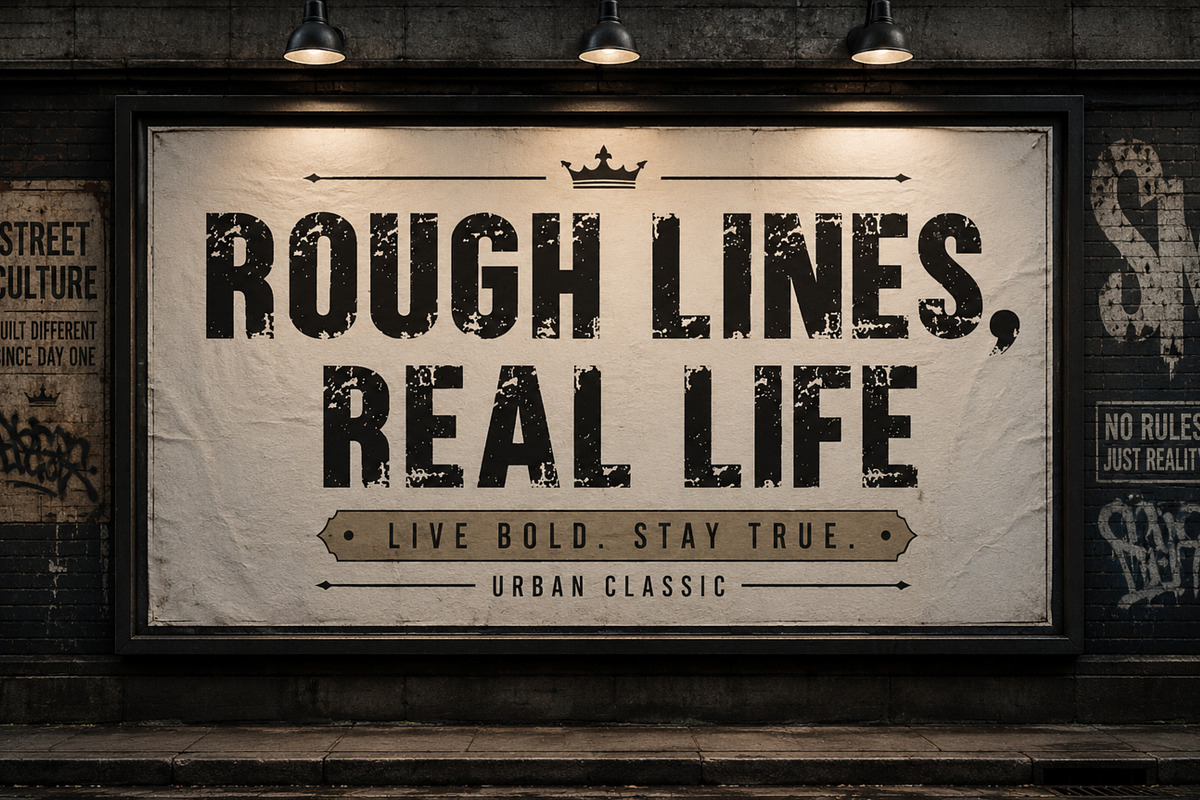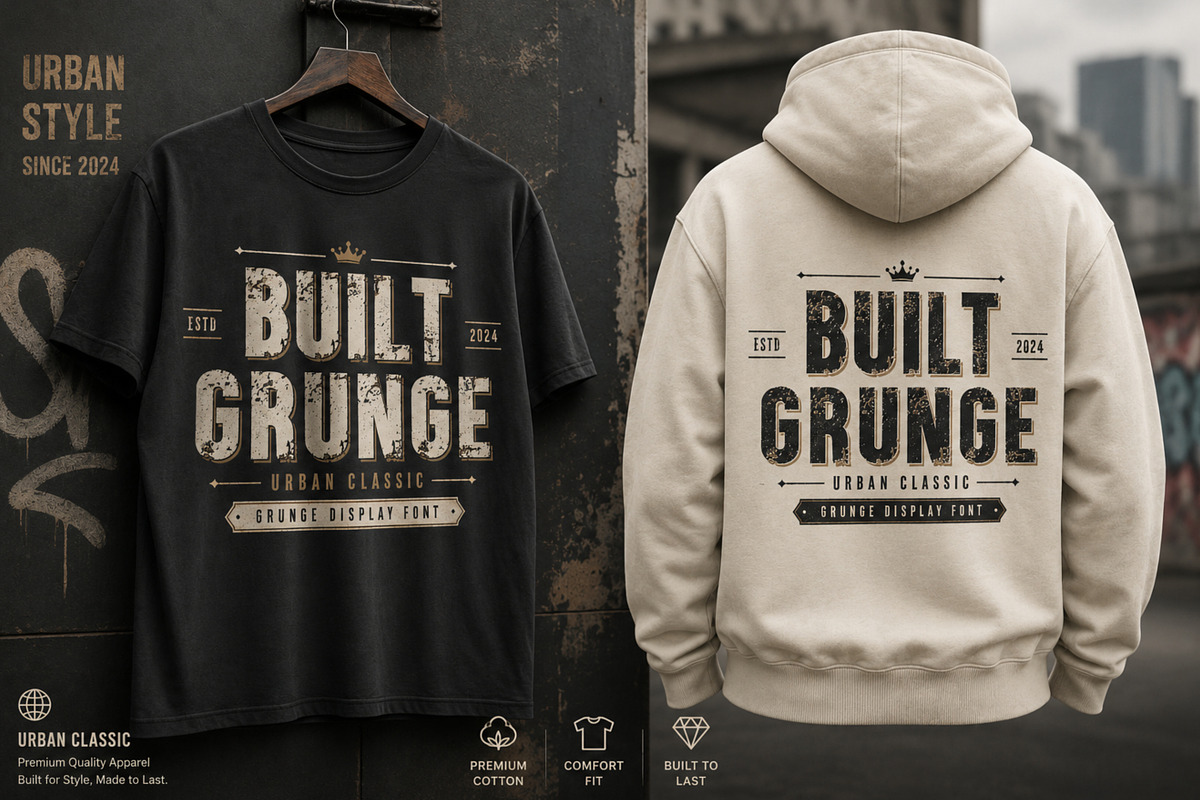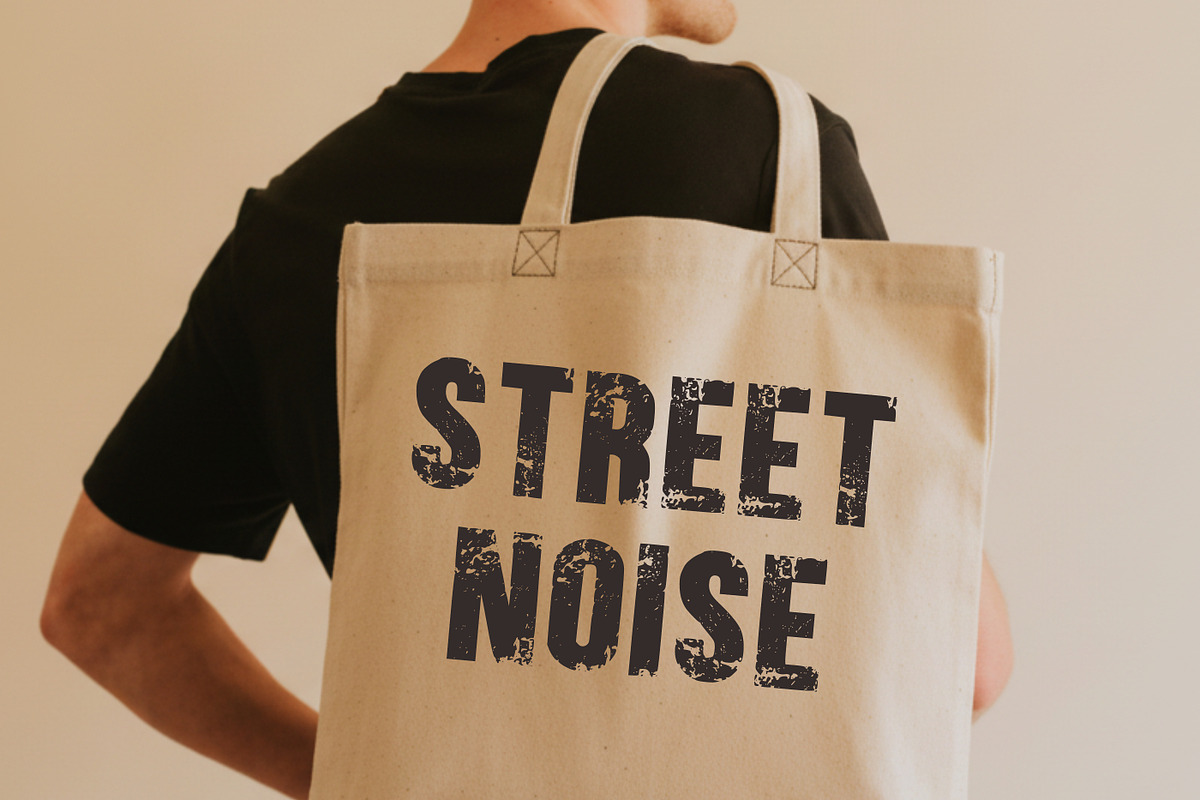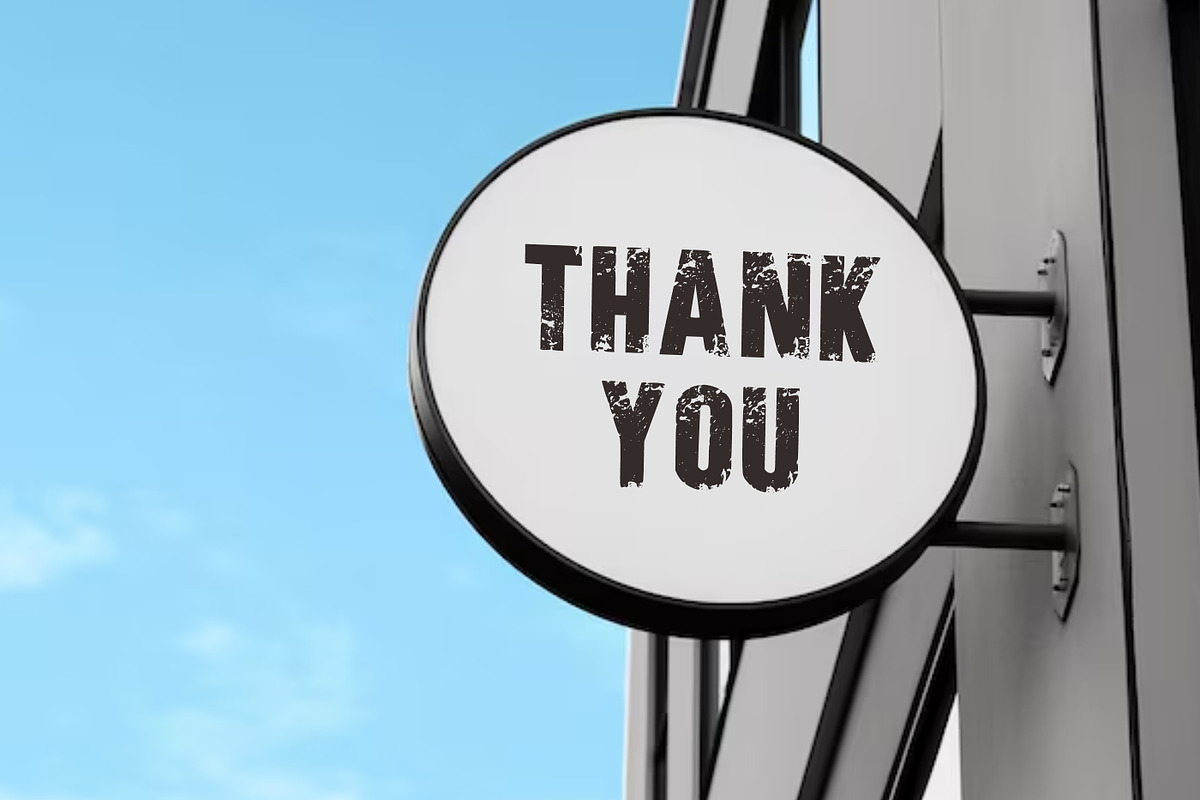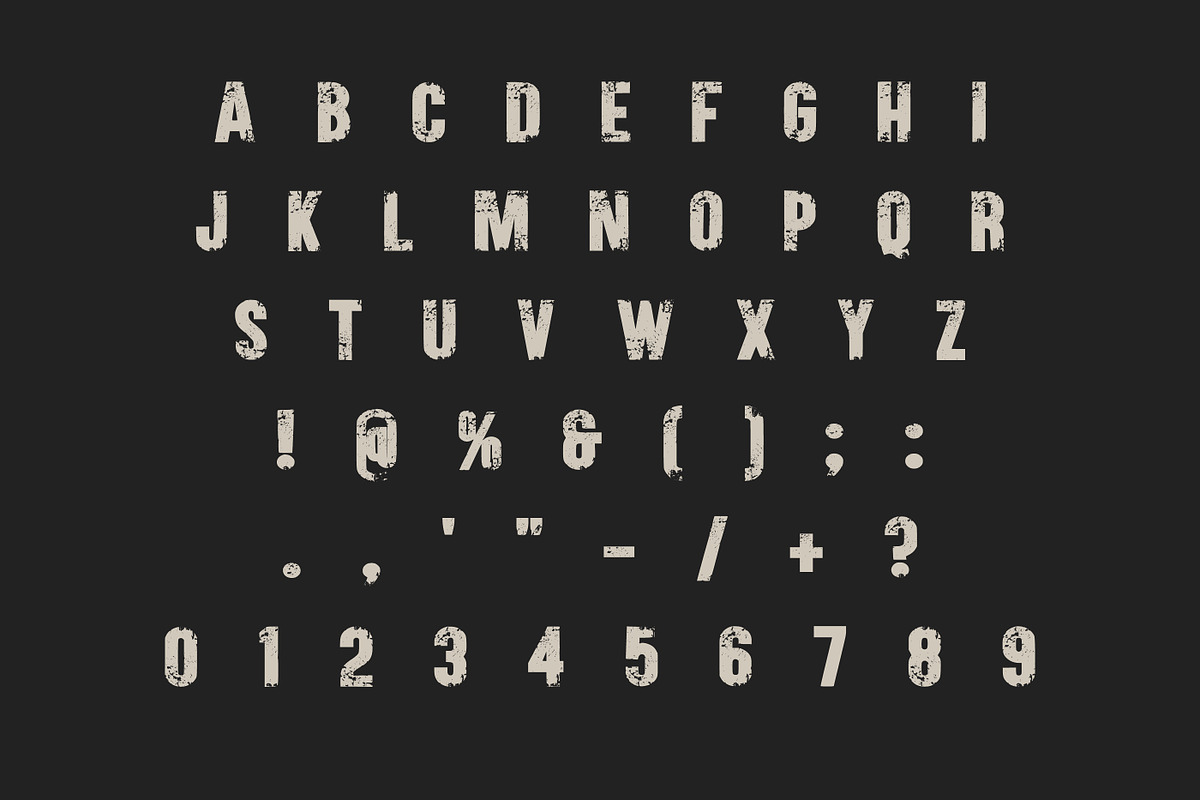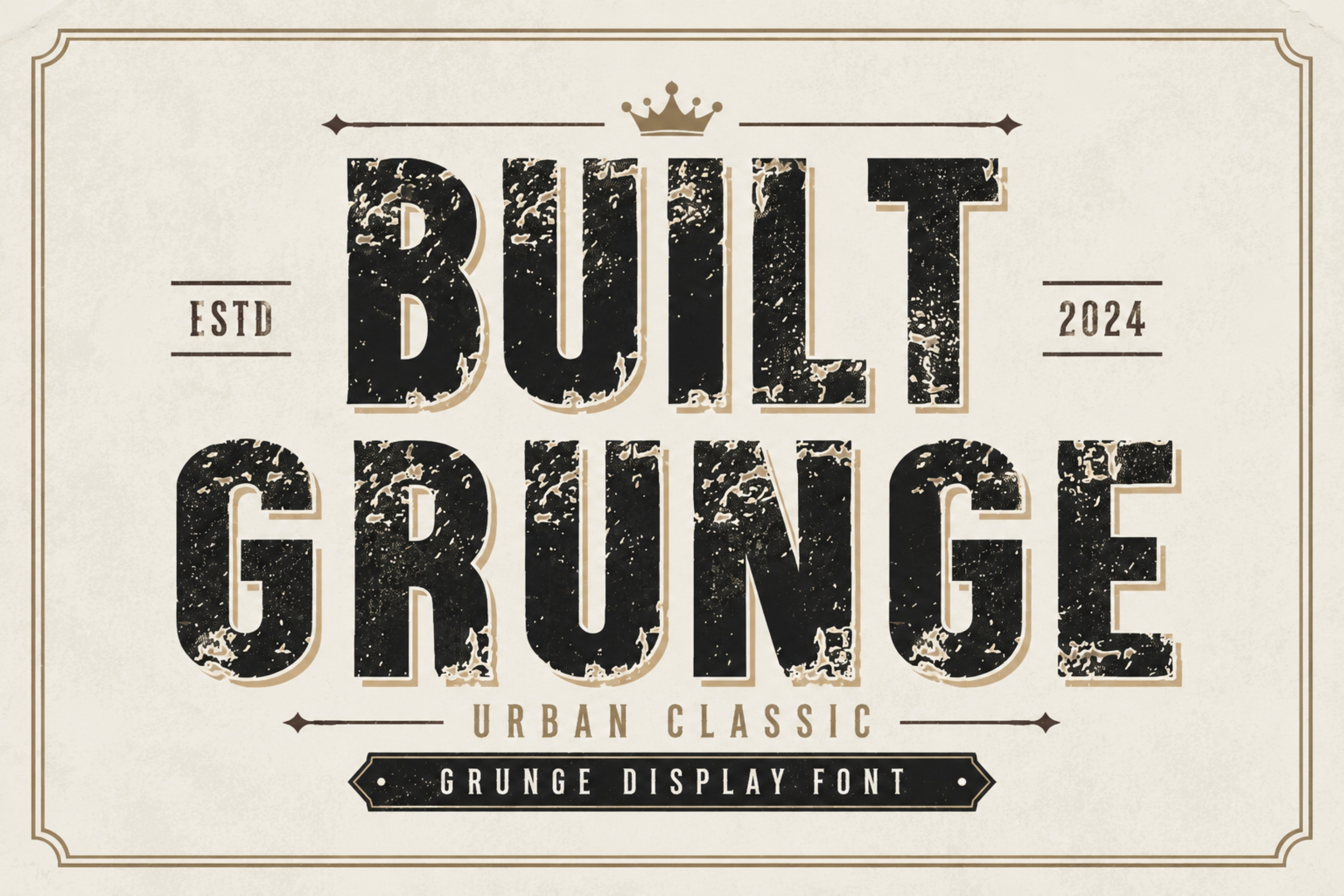
Built Grunge - Distressed Font
Introducing Built Grunge, a powerful vintage display font crafted with authentic distressed details to create a bold urban aesthetic. Designed for designers who love classic typography with a worn, handcrafted finish, this font delivers a strong visual impact across both print and digital projects.
Whether you're designing for clothing brands, motorcycle clubs, coffee shops, barbershops, breweries, outdoor brands, or retro-inspired merchandise, Built Grunge adds personality and rugged charm to every design.
Uppercase letters
Authentic grunge texture
Bold display style
Easy to use
Perfect for print & digital projects
Vintage Logos
Streetwear & Apparel
T-Shirt Designs
Posters
Packaging
Product Labels
Branding
Signage
Stickers
Café & Brewery Branding
Outdoor & Adventure Designs